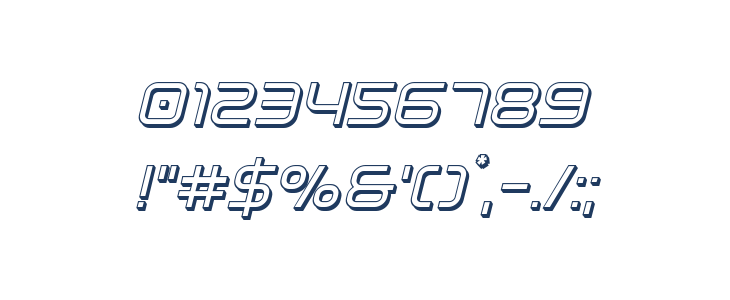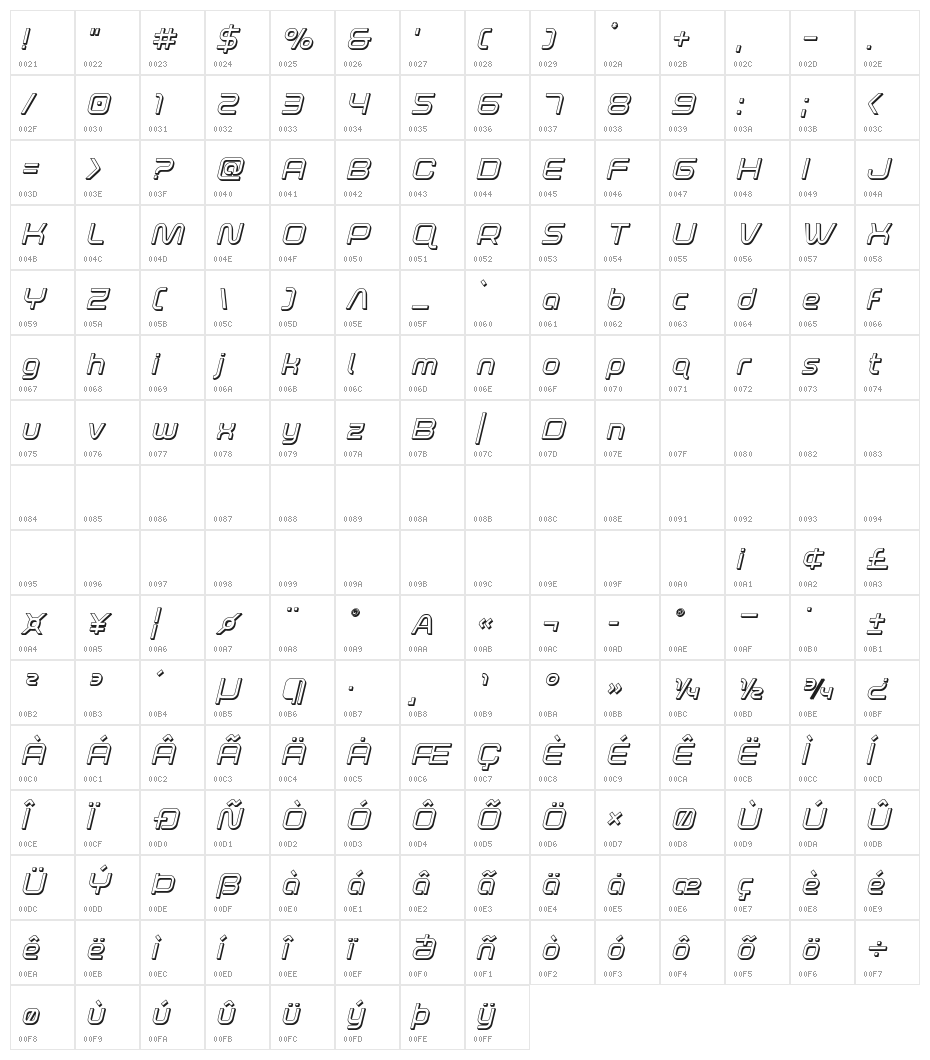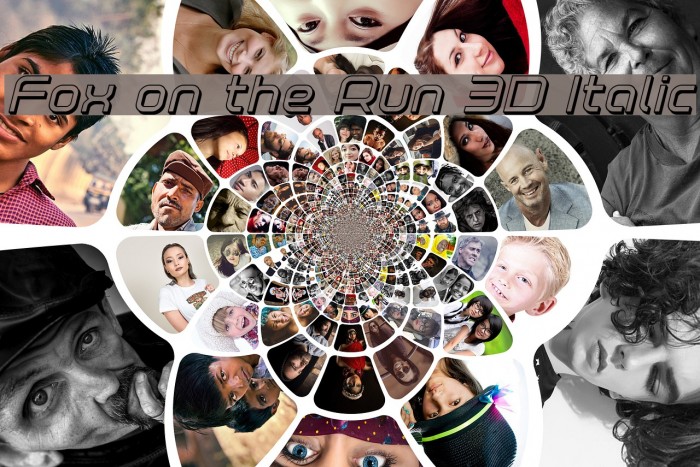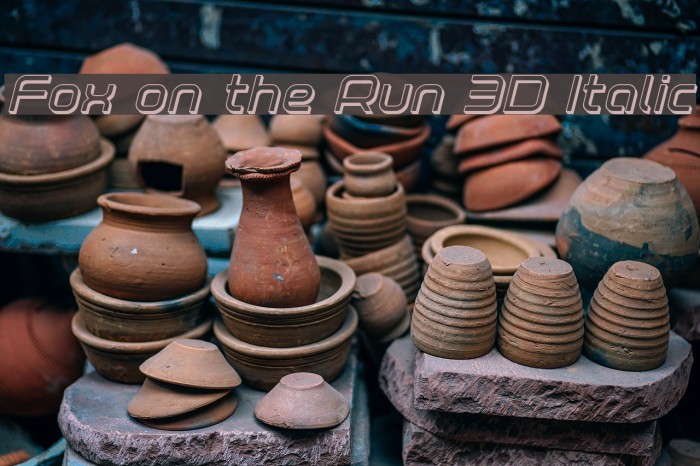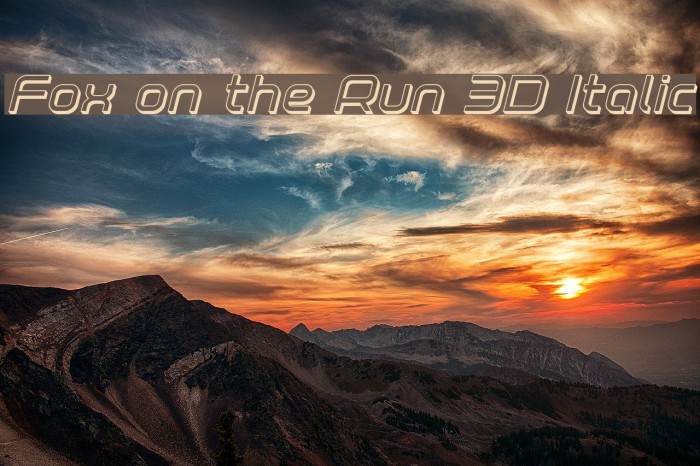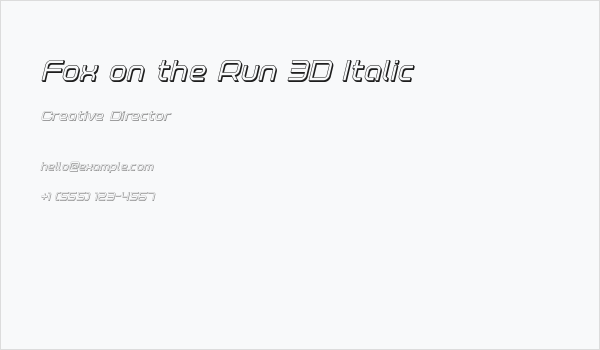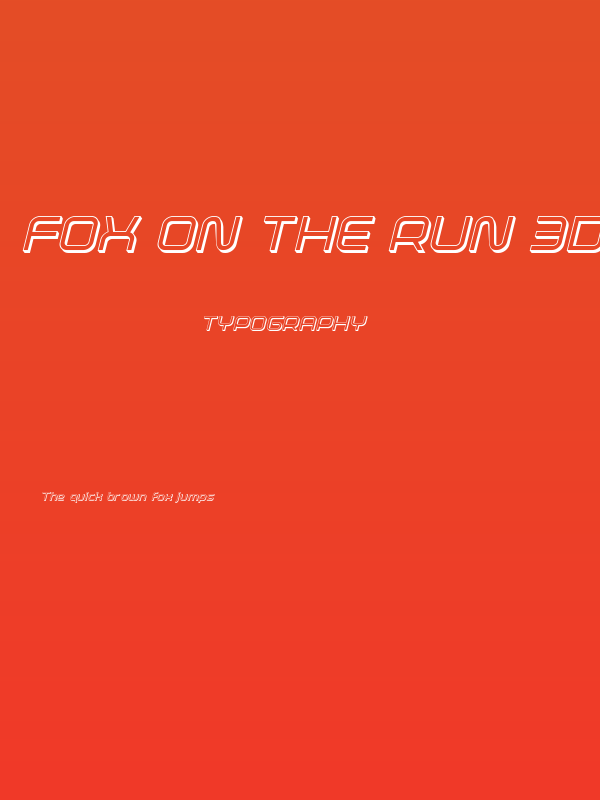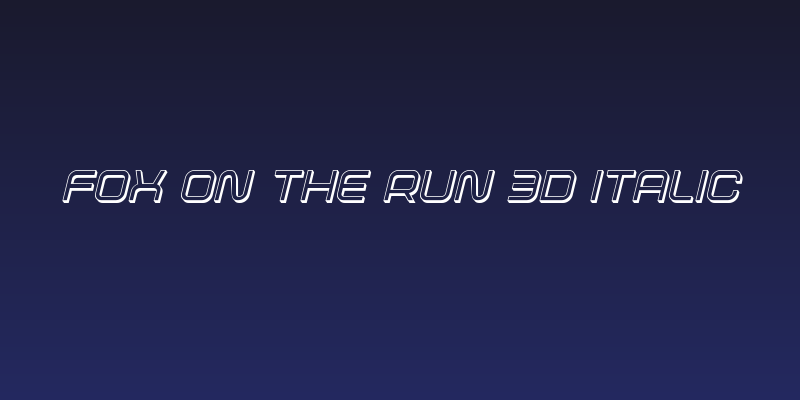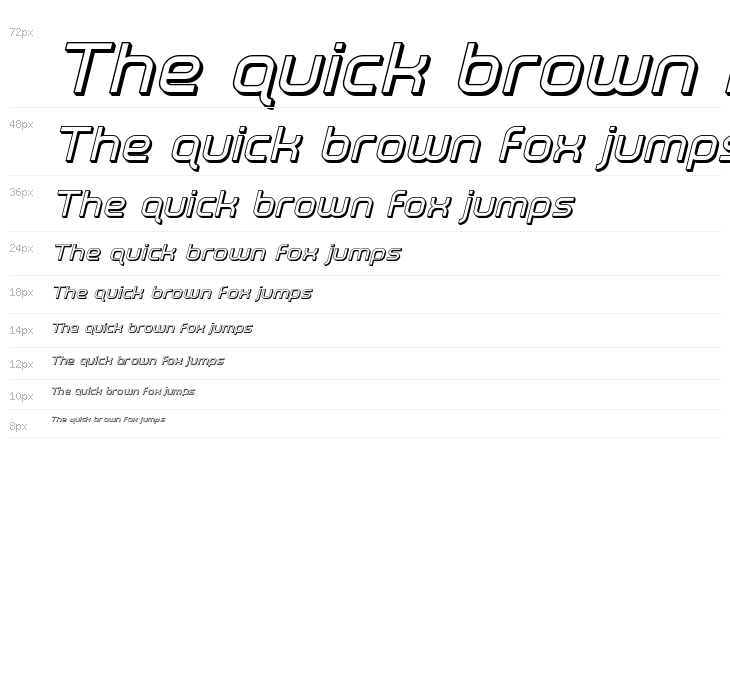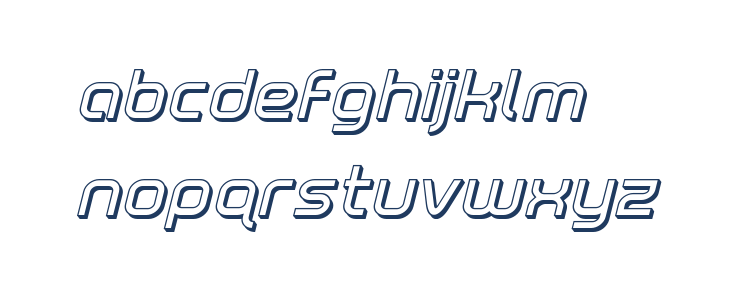
Fox on the Run 3D Italic Font
Fox on the Run 3D Italic Description
This font features a dynamic and futuristic design with a 3D effect that gives it a unique depth and dimension. The letters are outlined with a bold, black stroke that enhances the three-dimensional appearance. The characters are italicized, adding a sense of motion and speed, which is further emphasized by the angular and geometric shapes of the letters. The font maintains a consistent width and spacing, ensuring readability while still delivering a striking visual impact. The numbers and special characters follow the same design principles, making the font versatile for various uses.
| Proposed Projects | Ideal for futuristic designs, tech-related branding, video game titles, and dynamic posters. |